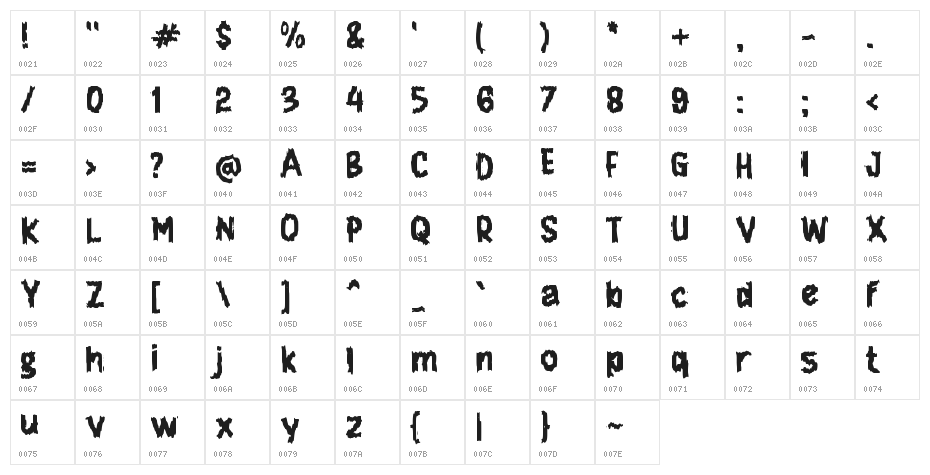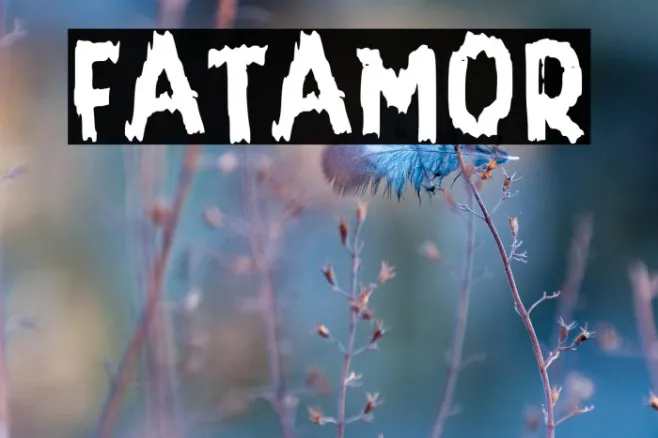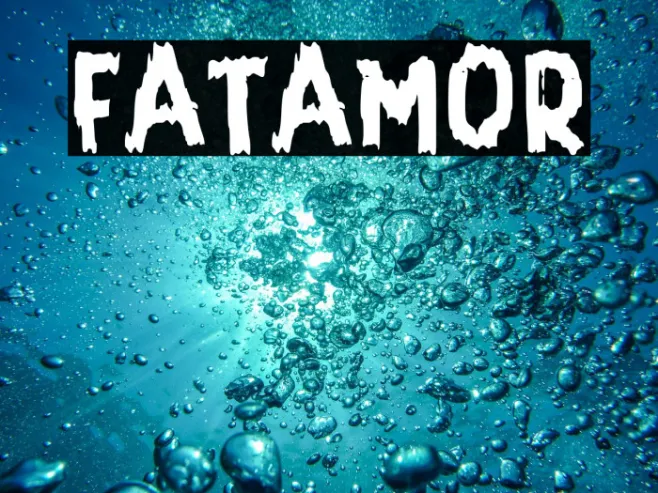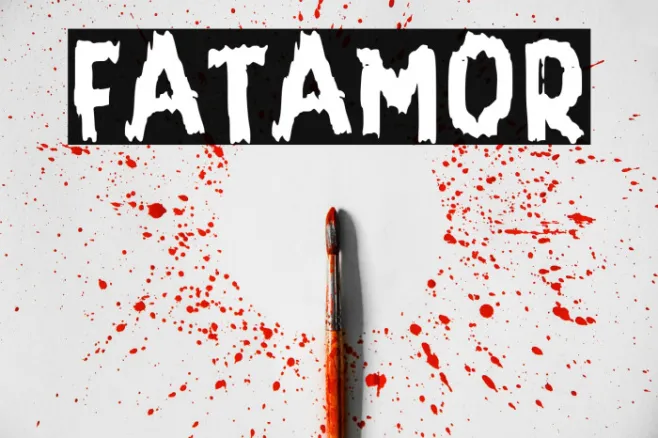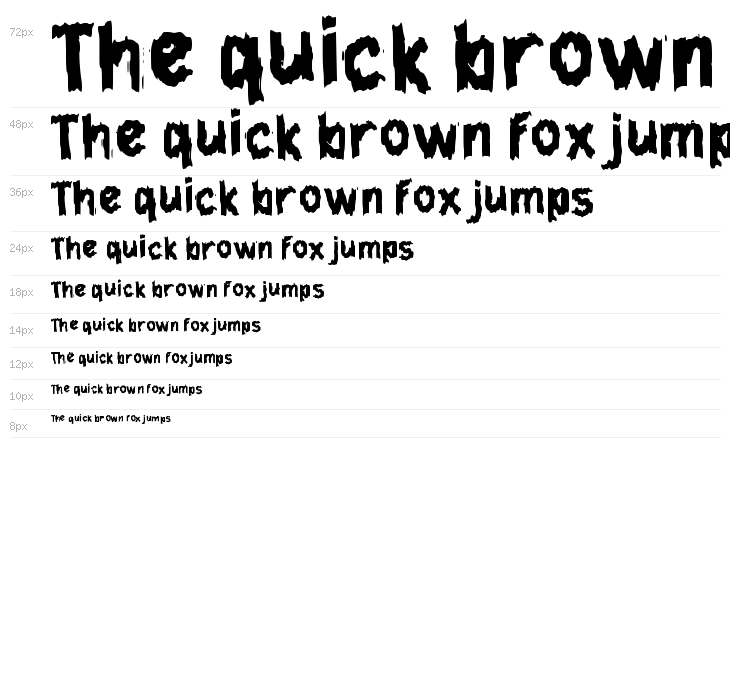
FATAMOR Font
FATAMOR Description
This font features a bold and rugged design, characterized by its irregular and jagged edges that give it a distressed and grungy appearance. The letters are thick and substantial, creating a strong visual impact. The uppercase and lowercase characters maintain a consistent style, with the uppercase being slightly more pronounced. Numbers and special characters follow the same rough aesthetic, ensuring uniformity across all glyphs. This font's unique texture makes it stand out, providing a sense of dynamism and energy.
| Overall Style | Grunge, Distressed |
| Use Case | Headlines, Posters, Branding |
| Proposed Projects | Ideal for projects requiring a bold statement, such as posters, album covers, or branding for edgy or alternative products. |